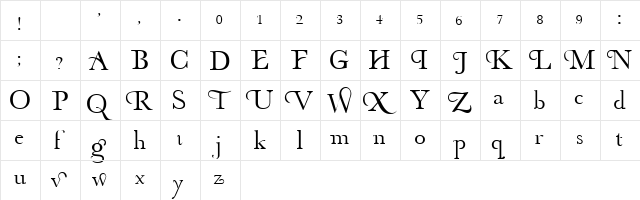
Organic Elements Regular
Design Context for Organic Elements Typeface
Organic Elements takes a measured approach to typography — its balanced proportions and neutral character make it a reliable workhorse for both digital and print work.
Pro Tip: Use Organic Elements in both headline and body roles to test its range before committing to a single application.